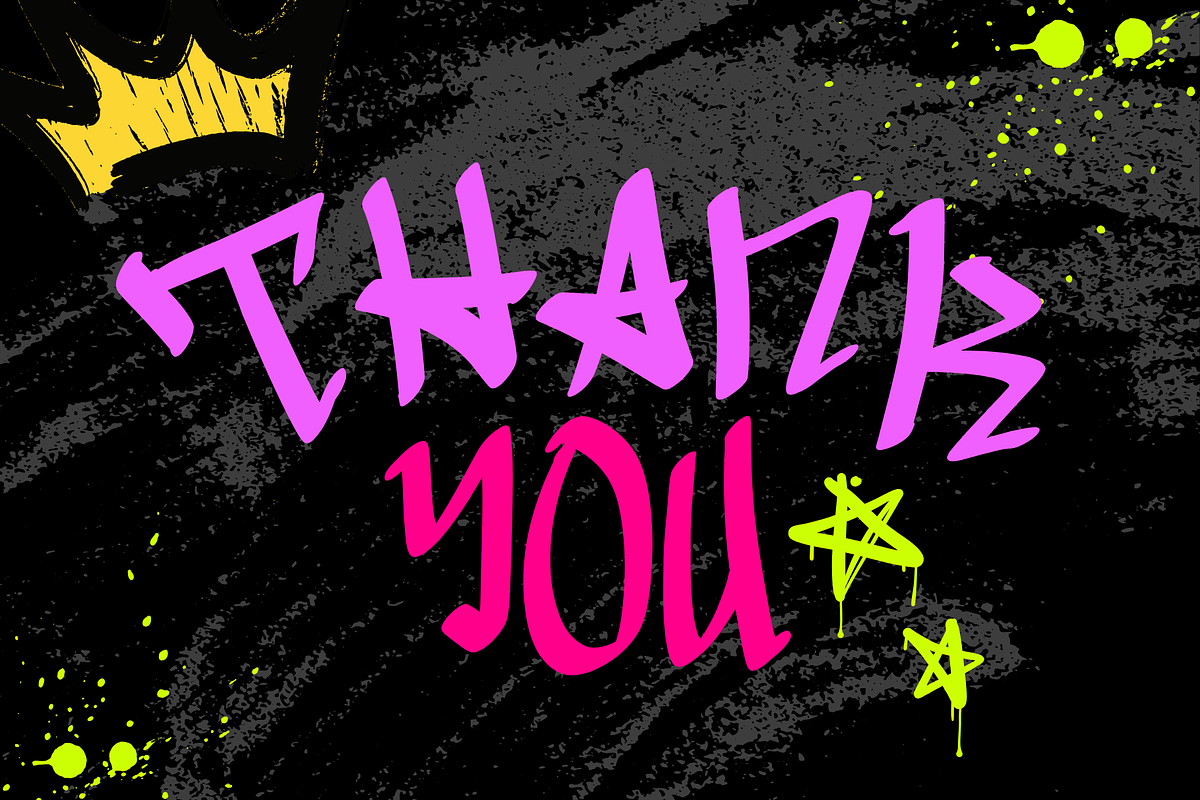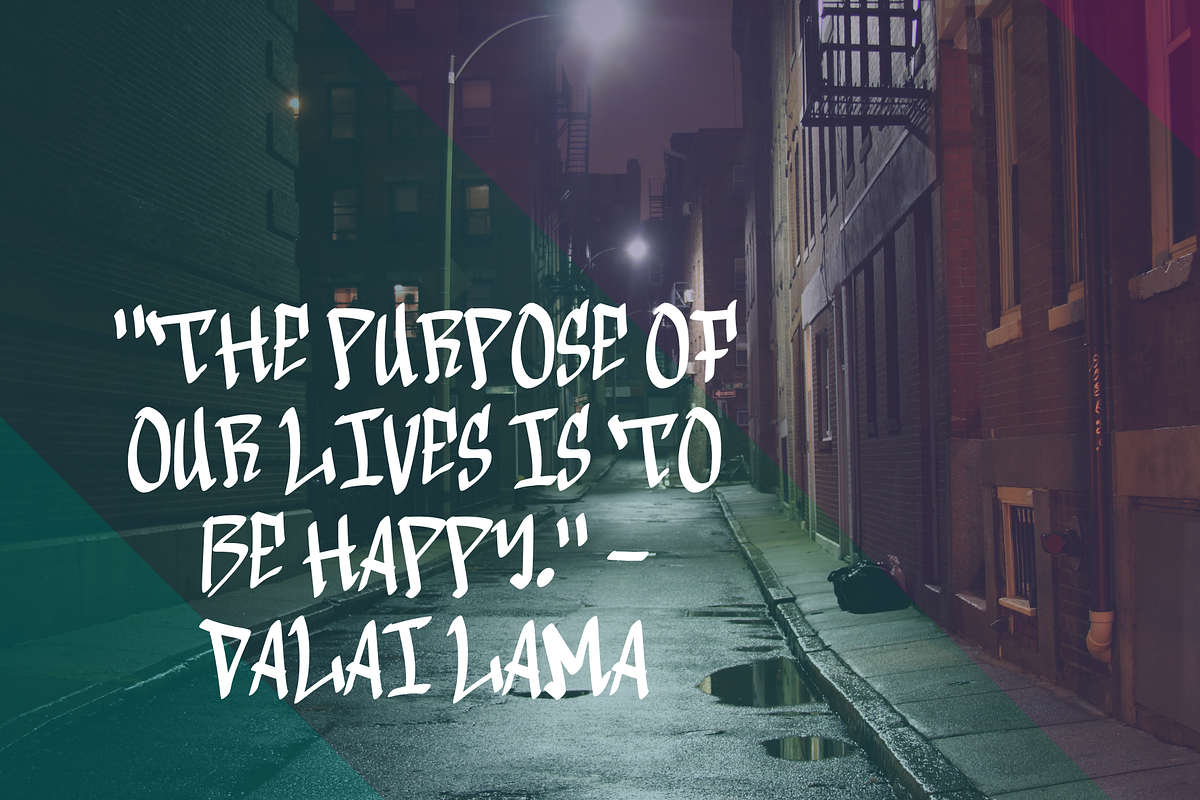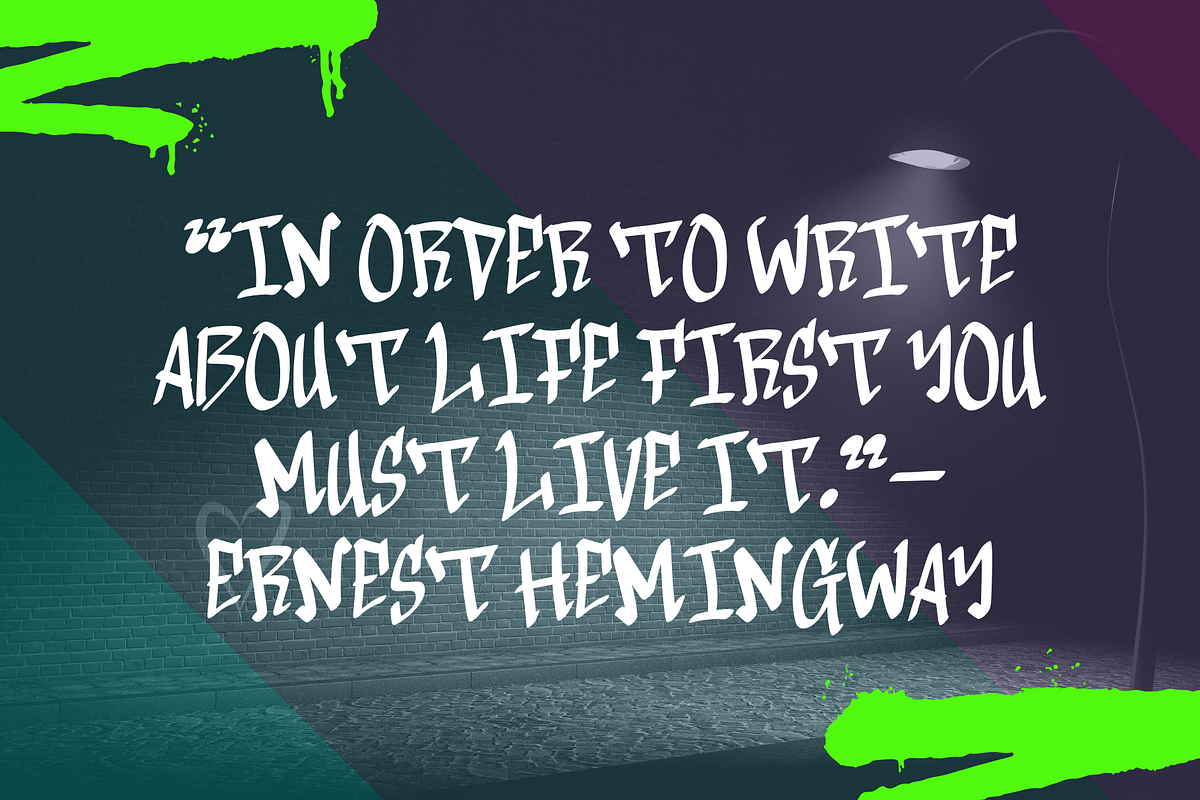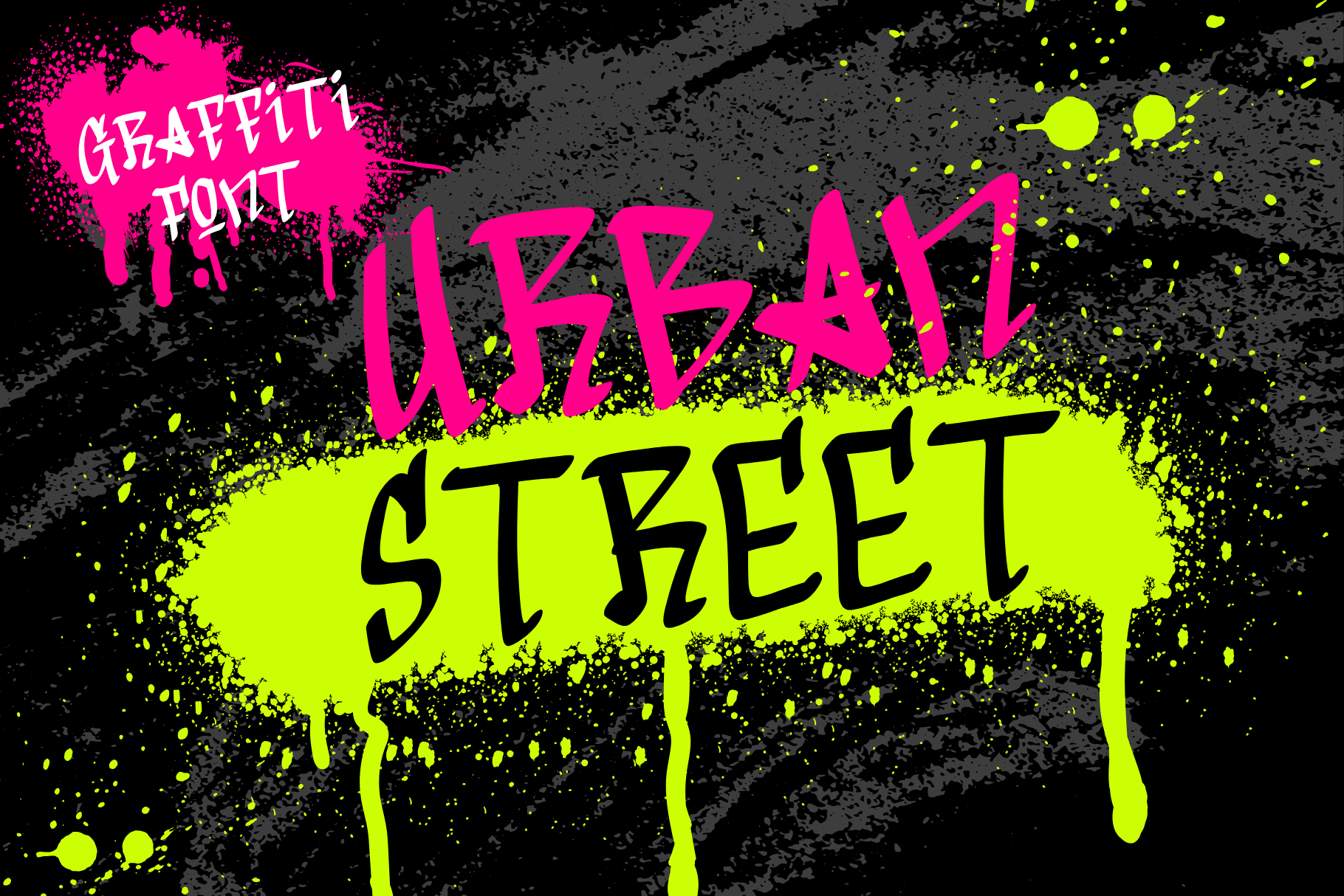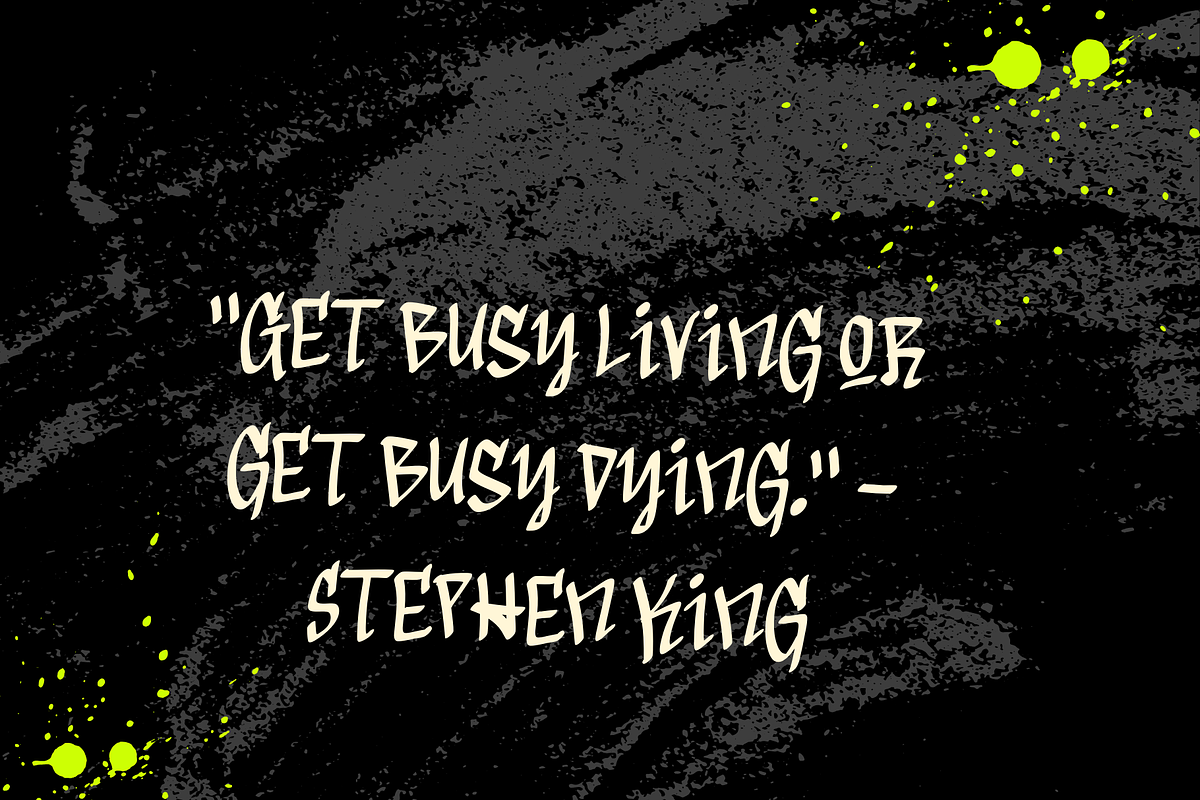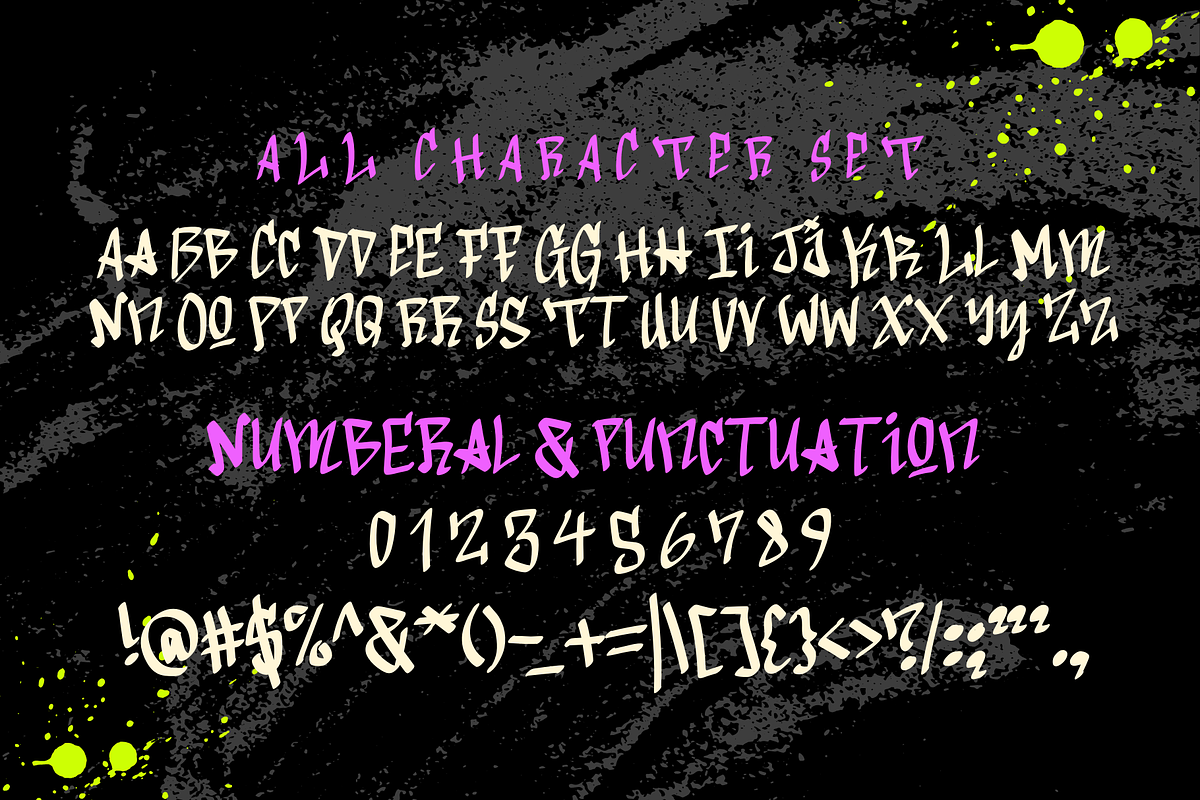
Urban Street is a graffiti font
Urban Street is a cool, graffiti-tagging font. It embodies playfulness and authenticity and is the perfect choice for all your favorite projects, including blog posts, logos, branding, ads, invitations, greeting cards, planners, photo albums, decorations, and more. Add it to any of your designs, and enjoy the results!